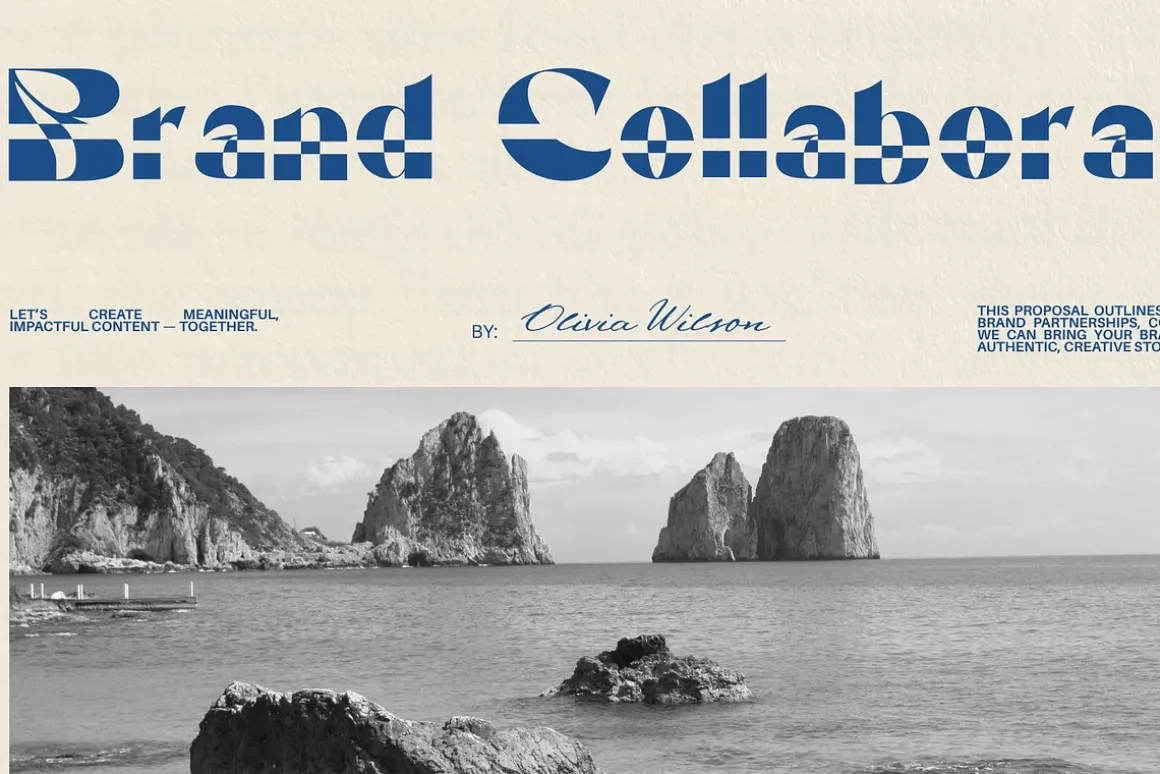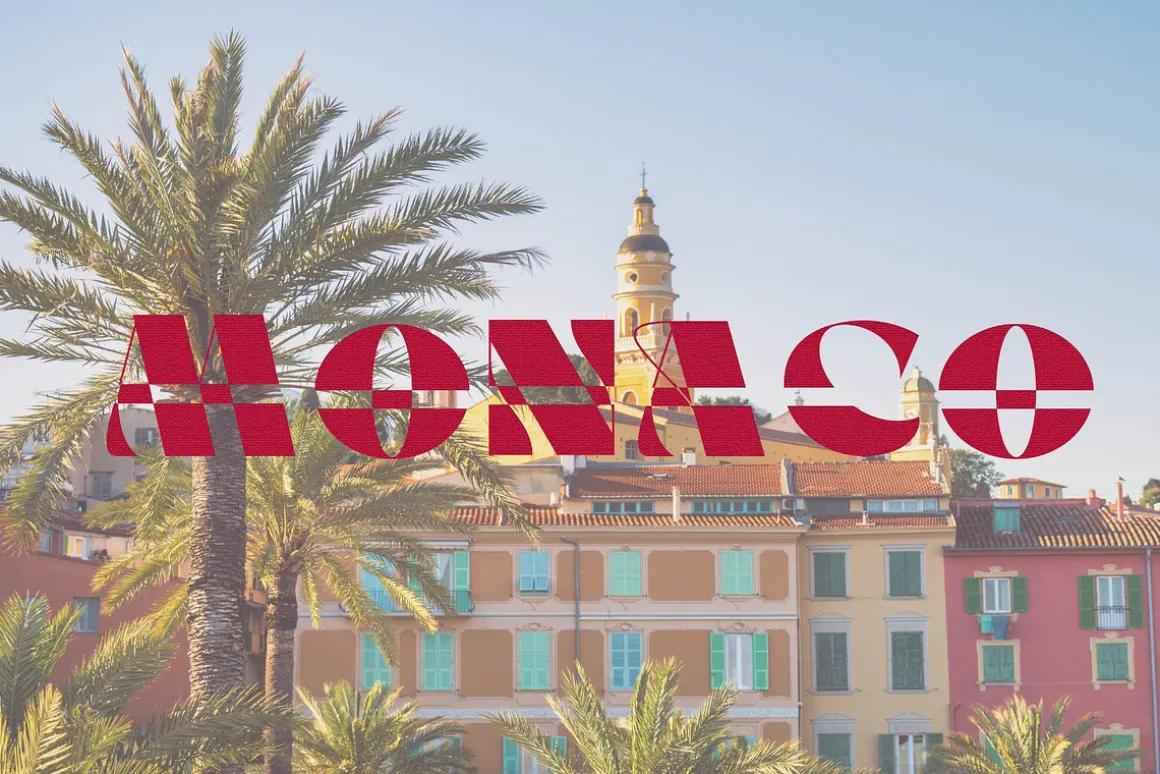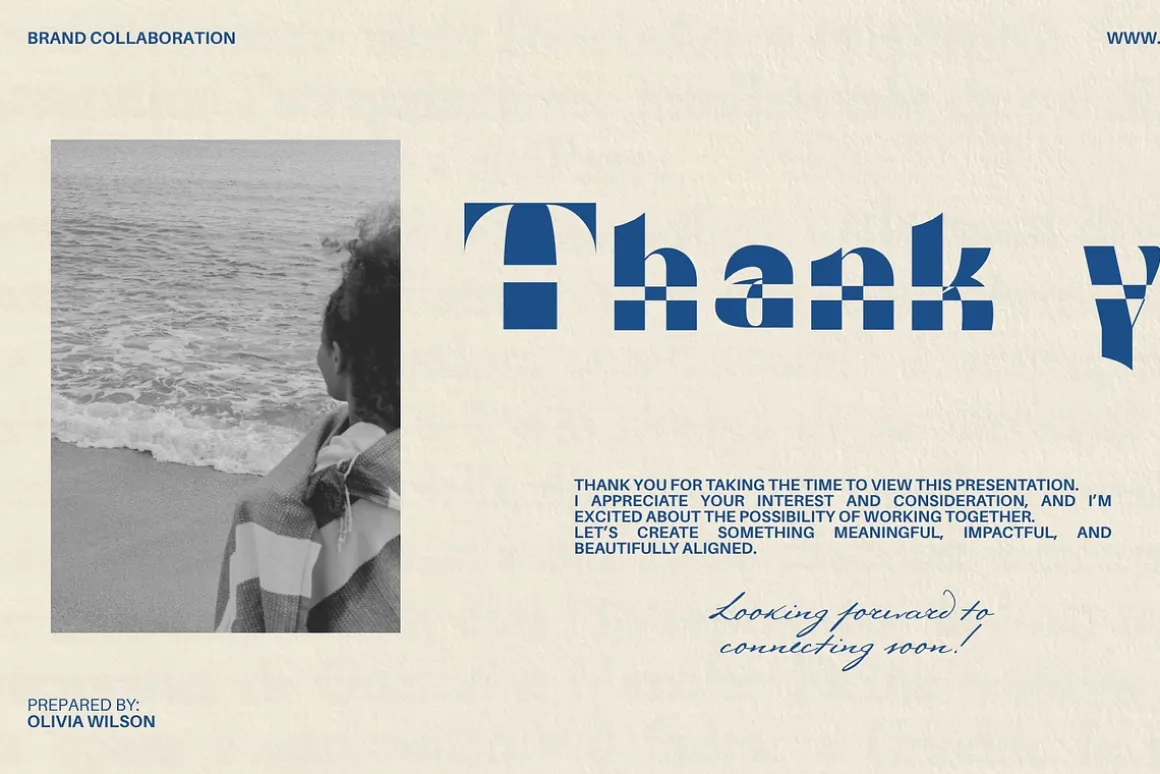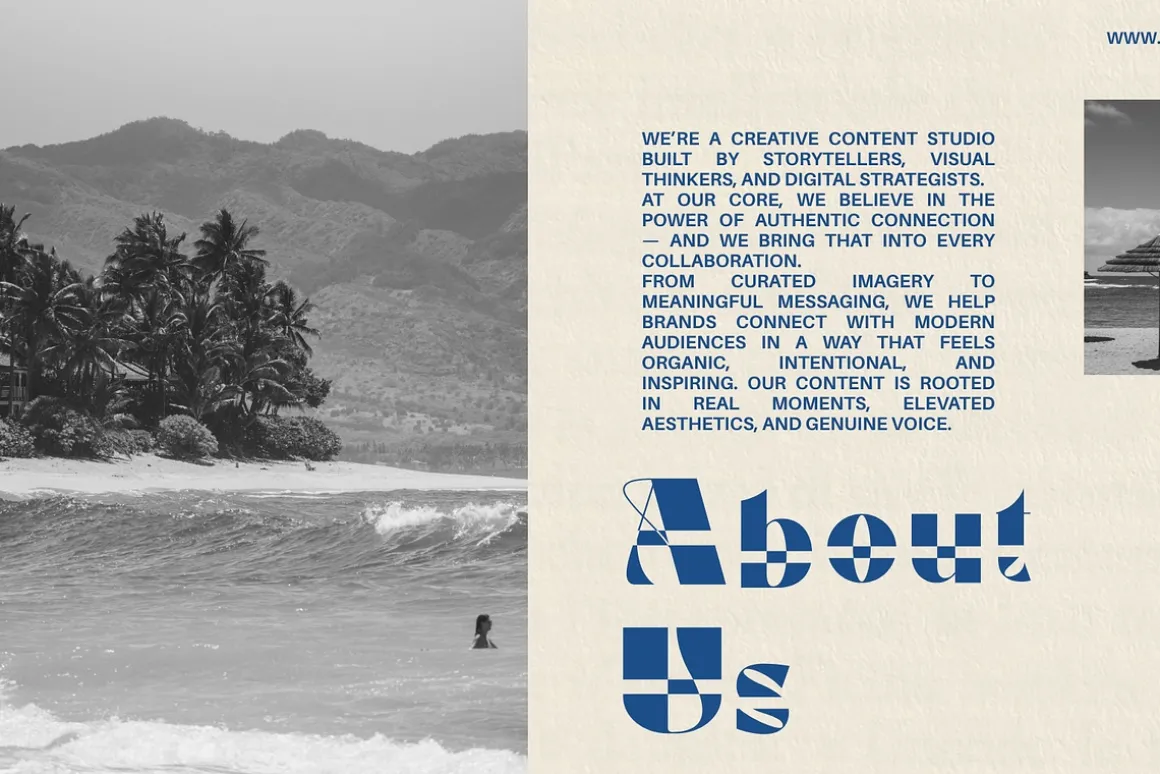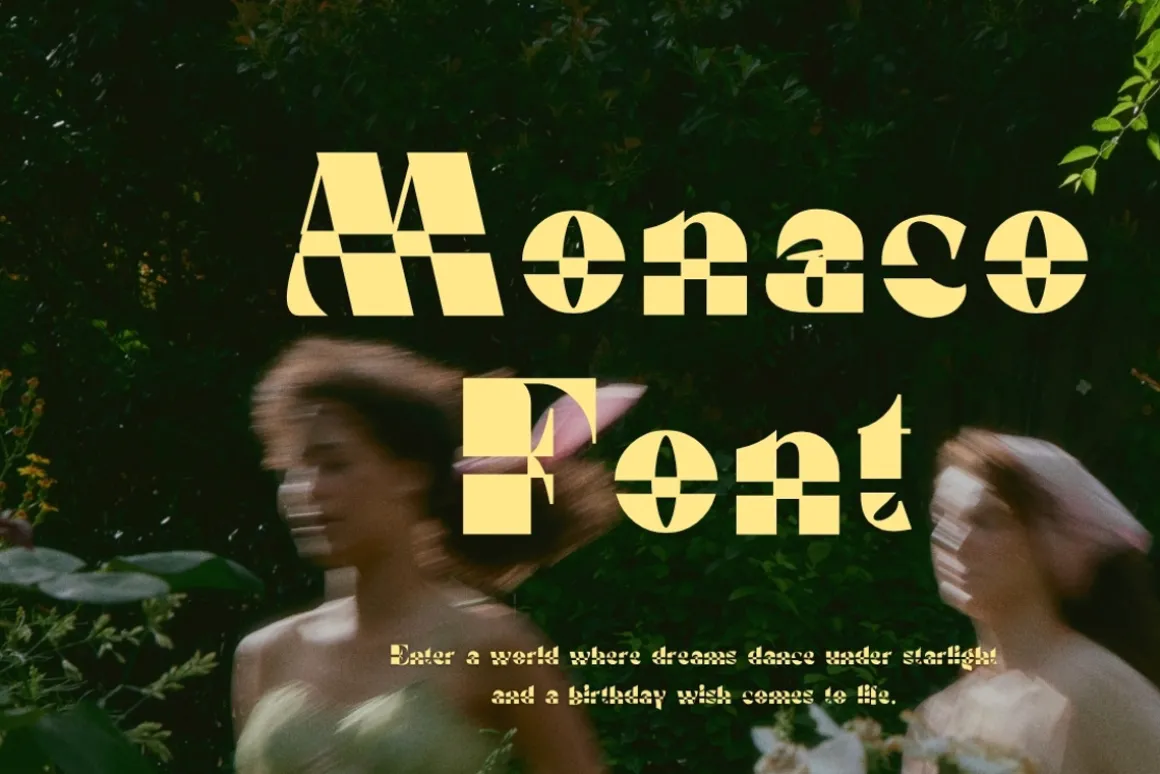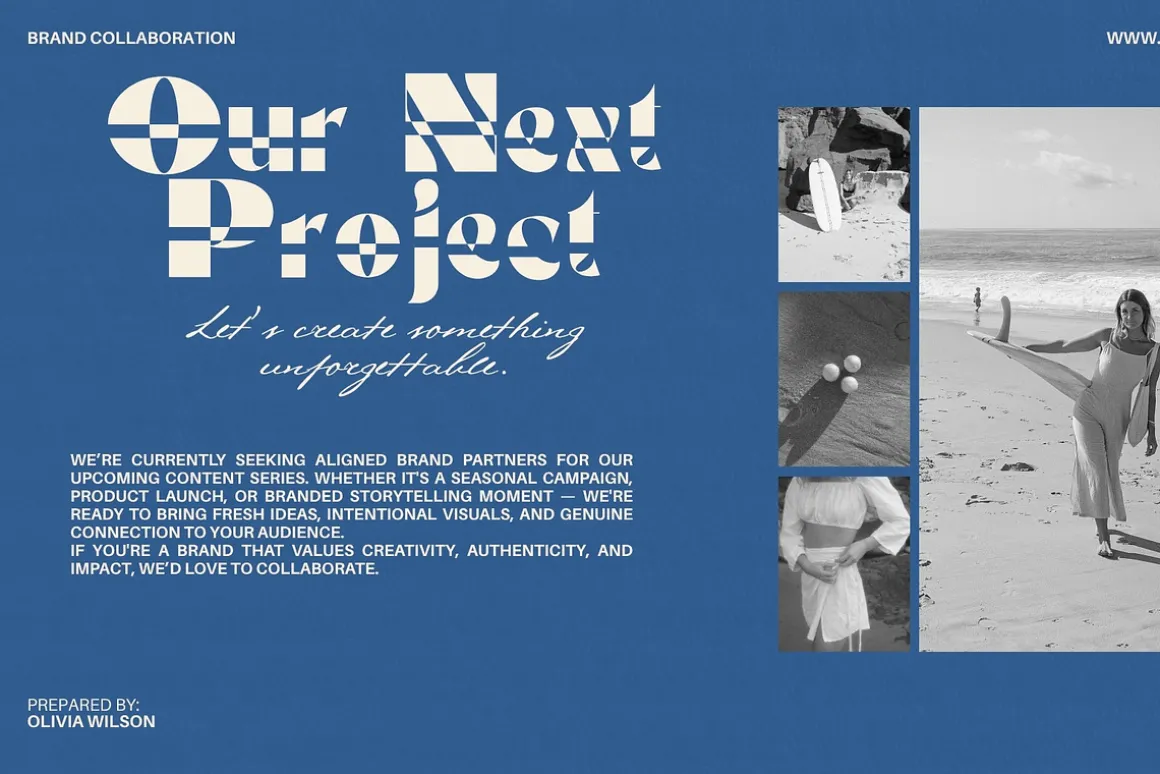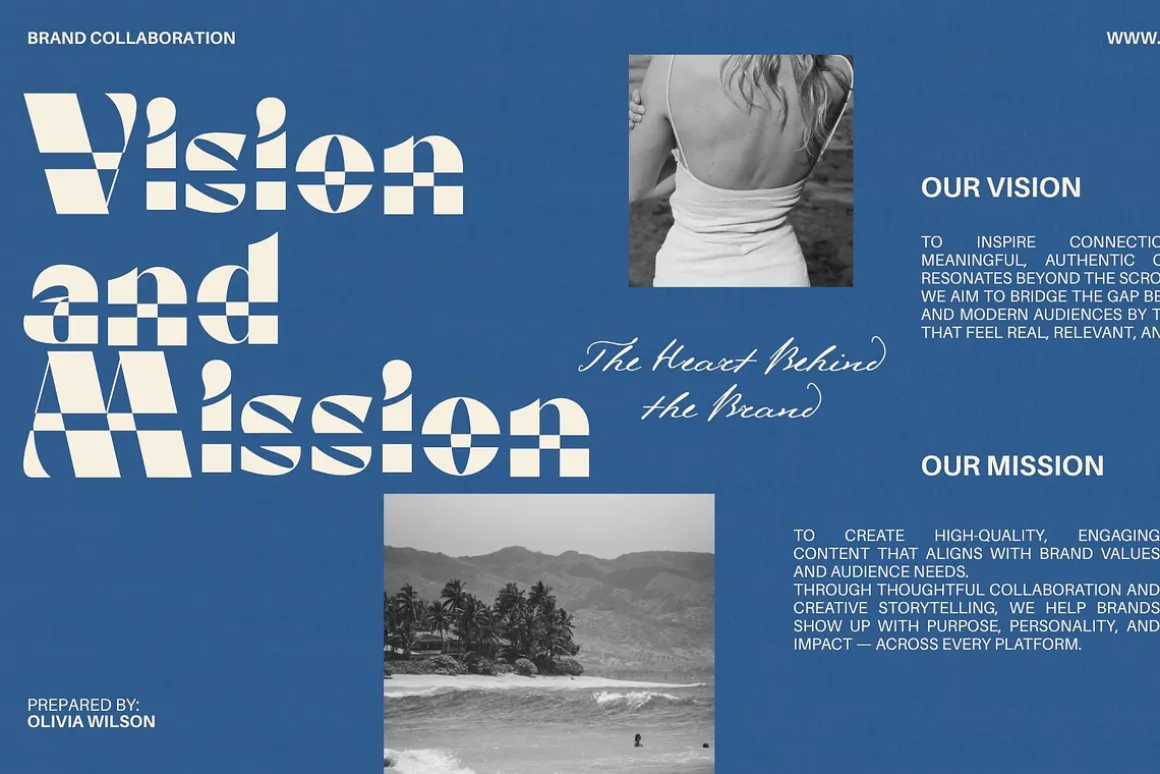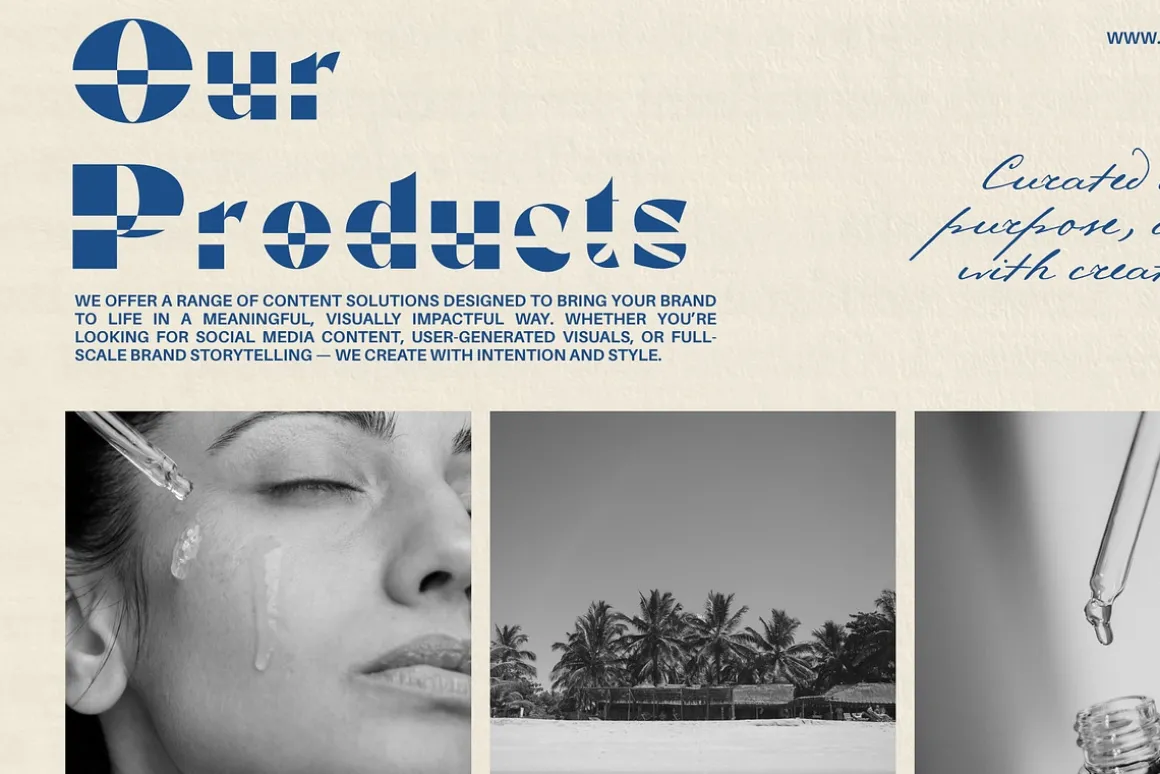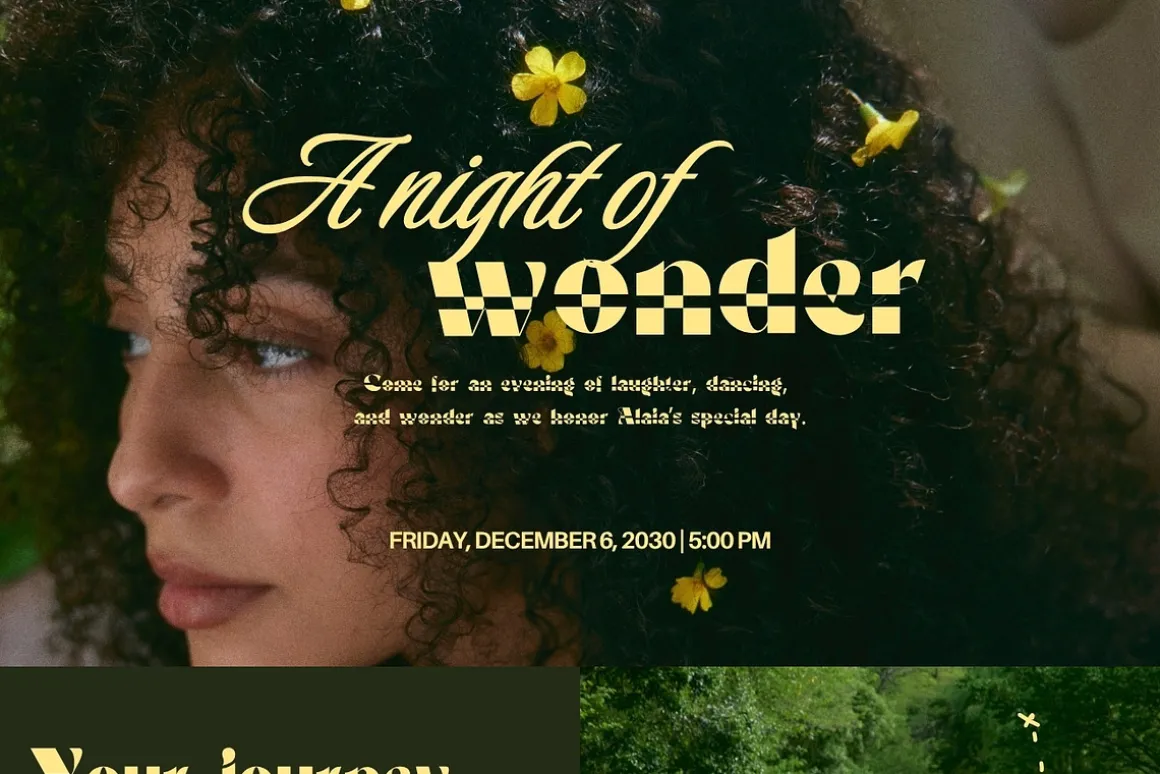
Monaco Font is a clean, classic monospaced sans serif typeface with a timeless technical aesthetic. Its fixed-width characters make it ideal for coding-inspired designs, developer branding, terminal graphics, UI mockups, posters, logos, stickers, t-shirts, websites, and digital products.
Perfect for:
Coding & programming projects
Developer branding
Tech logos
Terminal-inspired graphics
UI & UX mockups
Posters & prints
Stickers & merchandise
Social media graphics
Digital products
Features
Classic monospaced design
Fixed-width characters
Clean and highly legible
Uppercase & lowercase letter